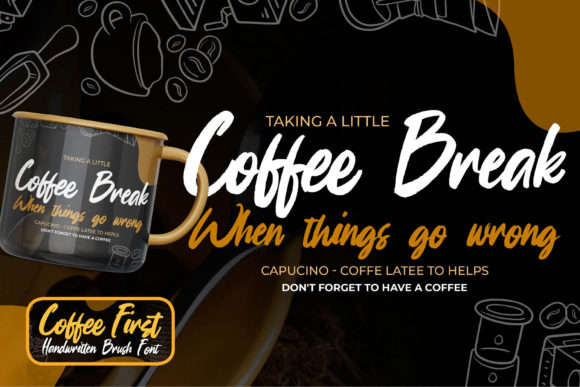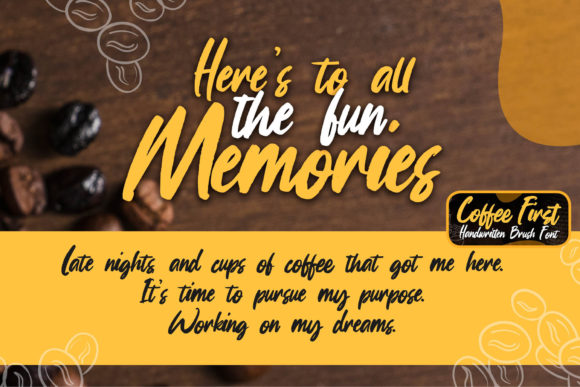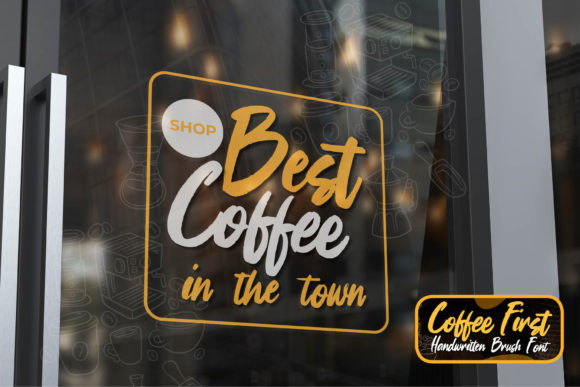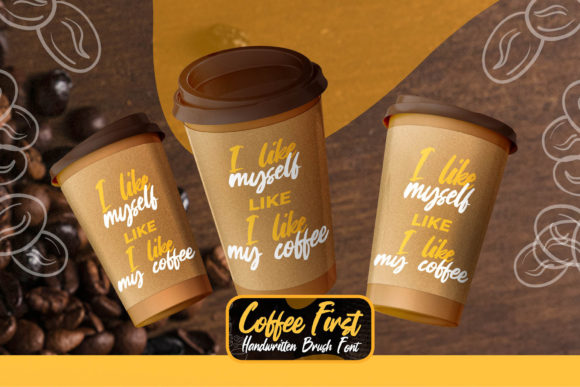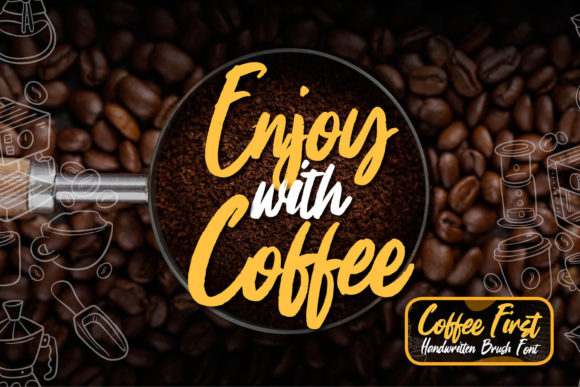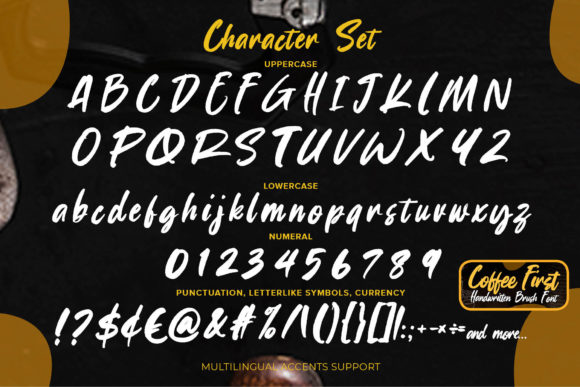
Coffee First Font: Elevate Your Designs with a Modern Handwritten Brush Font
Are you looking for a font that adds a personal touch to your designs? Look no further than Coffee First Font, a modern handwritten brush font with a natural feel. This versatile font is perfect for a wide range of creative projects, from watermarks on photography to logos, branding, invitations, advertisements, product designs, stationery, wedding designs, labels, product packaging, and special events.
What Makes Coffee First Font Special?
Coffee First Font stands out from other fonts due to its unique, handwritten brush style. The font has a natural, effortless feel that makes it perfect for designers and crafters who want to add a personal touch to their work. The font’s modern and trendy vibe makes it ideal for projects that require a fresh and contemporary look.
Coffee First Font is great for a variety of creative projects, including:
- Watermarks on Photography: Add a professional touch to your photos with a custom watermark featuring Coffee First Font.
- Logos & Branding: Create a unique and memorable brand identity with a logo that incorporates Coffee First Font.
- Invitations: Make your invitations stand out with a beautiful, handwritten font that sets the tone for your event.
- Advertisements: Grab the attention of your audience with eye-catching ads that feature Coffee First Font.
- Product Designs: Add a personal touch to your product designs, from packaging to labels, with Coffee First Font.
- Stationery: Create beautiful stationery, including greeting cards, thank-you cards, and more, with Coffee First Font.
- Wedding Designs: Make your wedding designs, including invitations, programs, and decorations, truly special with Coffee First Font.
Why Choose Coffee First Font?
There are many reasons why Coffee First Font is a great choice for designers and crafters:
- Unique and Versatile: Coffee First Font is a one-of-a-kind font that can be used for a wide range of projects.
- Easy to Read: The font is clear and easy to read, making it perfect for body text and headlines.
- Scalable: Coffee First Font is highly scalable, making it suitable for use in large and small projects.
Tips for Using Coffee First Font
Here are some tips for getting the most out of Coffee First Font:
- Experiment with Different Sizes: Coffee First Font looks great in a variety of sizes, from small captions to large headlines.
- Play with Colors: The font looks great in a range of colors, from bold and bright to soft and pastel.
- Mix and Match: Combine Coffee First Font with other fonts to create a unique and interesting look.
Coffee First Font is a versatile and modern handwritten brush font that is perfect for designers and crafters. With its natural feel and unique style, it’s ideal for a wide range of creative projects. Whether you’re looking to add a personal touch to your designs or create a professional brand identity, Coffee First Font is a great choice.